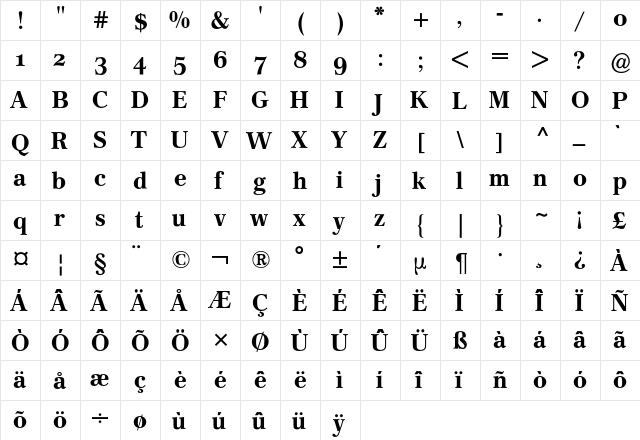
Cremona Expert BQ Regular
Design Context for Cremona Expert BQ Typeface
Cremona Expert BQ offers clean, dependable letterforms without strong stylistic allegiance, making it a practical choice for designers who need flexibility.
Pro Tip: Use Cremona Expert BQ in both headline and body roles to test its range before committing to a single application.